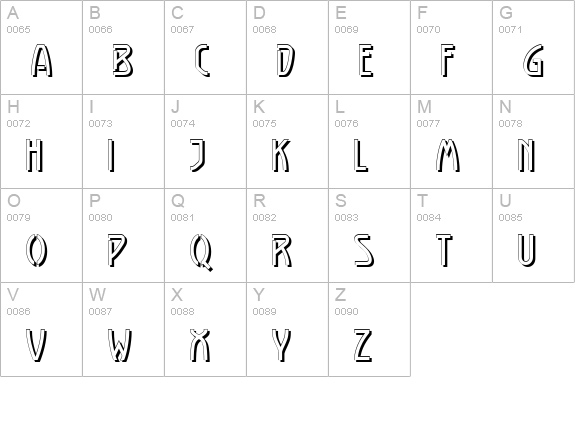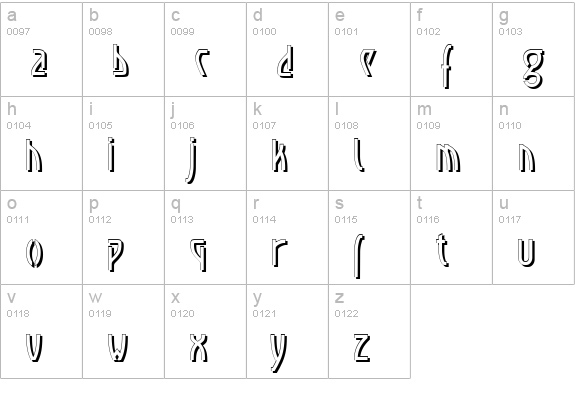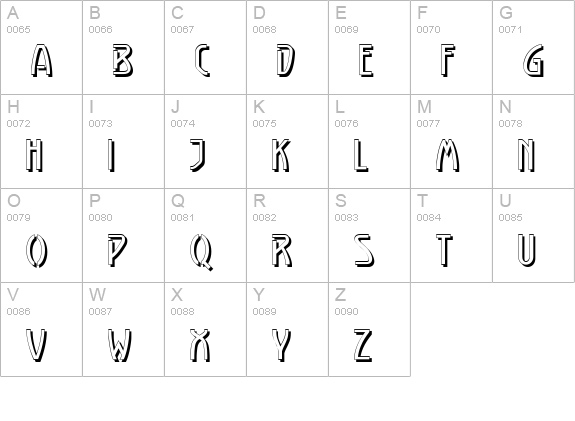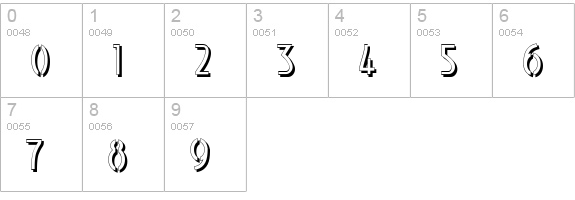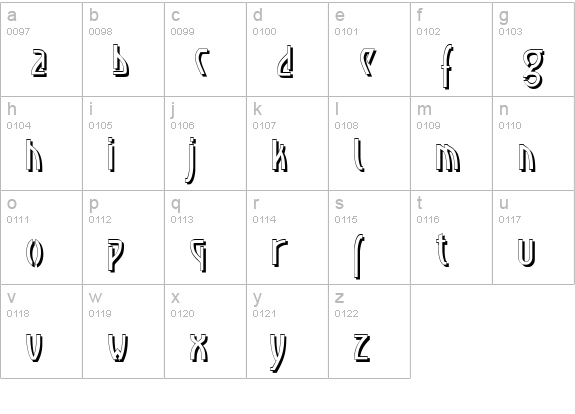
Loxembourg 1910 Shadow Font Details
Introducing Loxembourg 1910 Shadow, a captivating and timeless font that effortlessly transports you to the elegance and grandeur of the early 20th century. This exquisite typeface pays homage to the Art Nouveau movement with its delicate curves, ornate details, and mesmerizing shadows. Loxembourg 1910 Shadow is the perfect choice for projects that demand a touch of sophistication and nostalgia. Its unique blend of vintage charm and contemporary flair allows it to seamlessly integrate into a wide range of designs, from wedding invitations and event posters to branding materials and book covers. With its generous character set, Loxembourg 1910 Shadow offers versatility and flexibility for all your creative endeavors. Whether you're looking to add a touch of elegance to your next project or evoke a sense of old-world charm, this font has you covered. One of the most remarkable aspects of Loxembourg 1910 Shadow is that it is freely available to download at FontsMarket.com. This means that you can bring the allure of this stunning font into your designs without any cost. Its accessibility allows designers, both seasoned professionals and aspiring enthusiasts, to explore their creativity without limitations. Immerse yourself in the timeless beauty of Loxembourg 1910 Shadow and elevate your designs to new heights. Download this captivating font today at FontsMarket.com and let its graceful curves and alluring shadows breathe life into your next project.